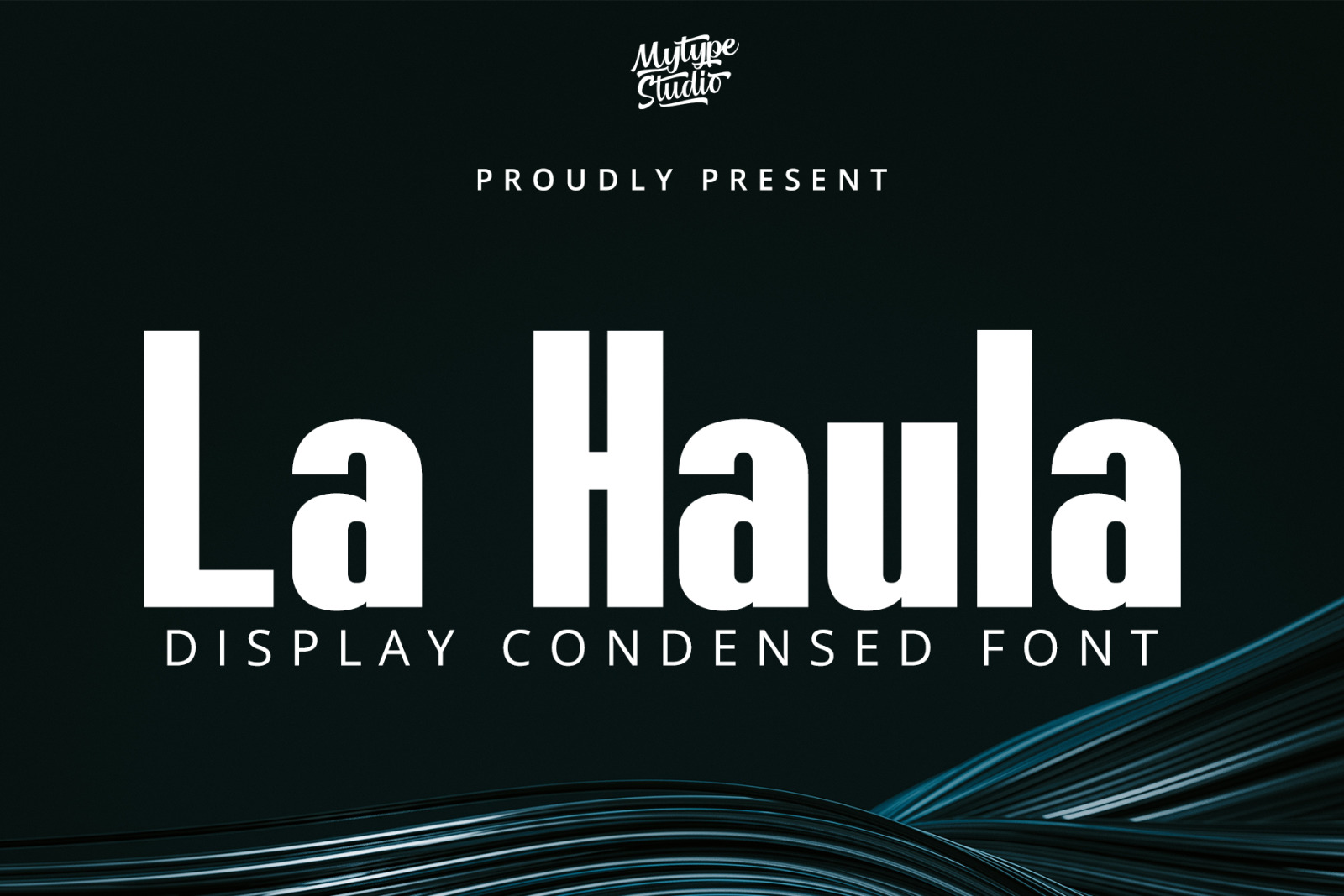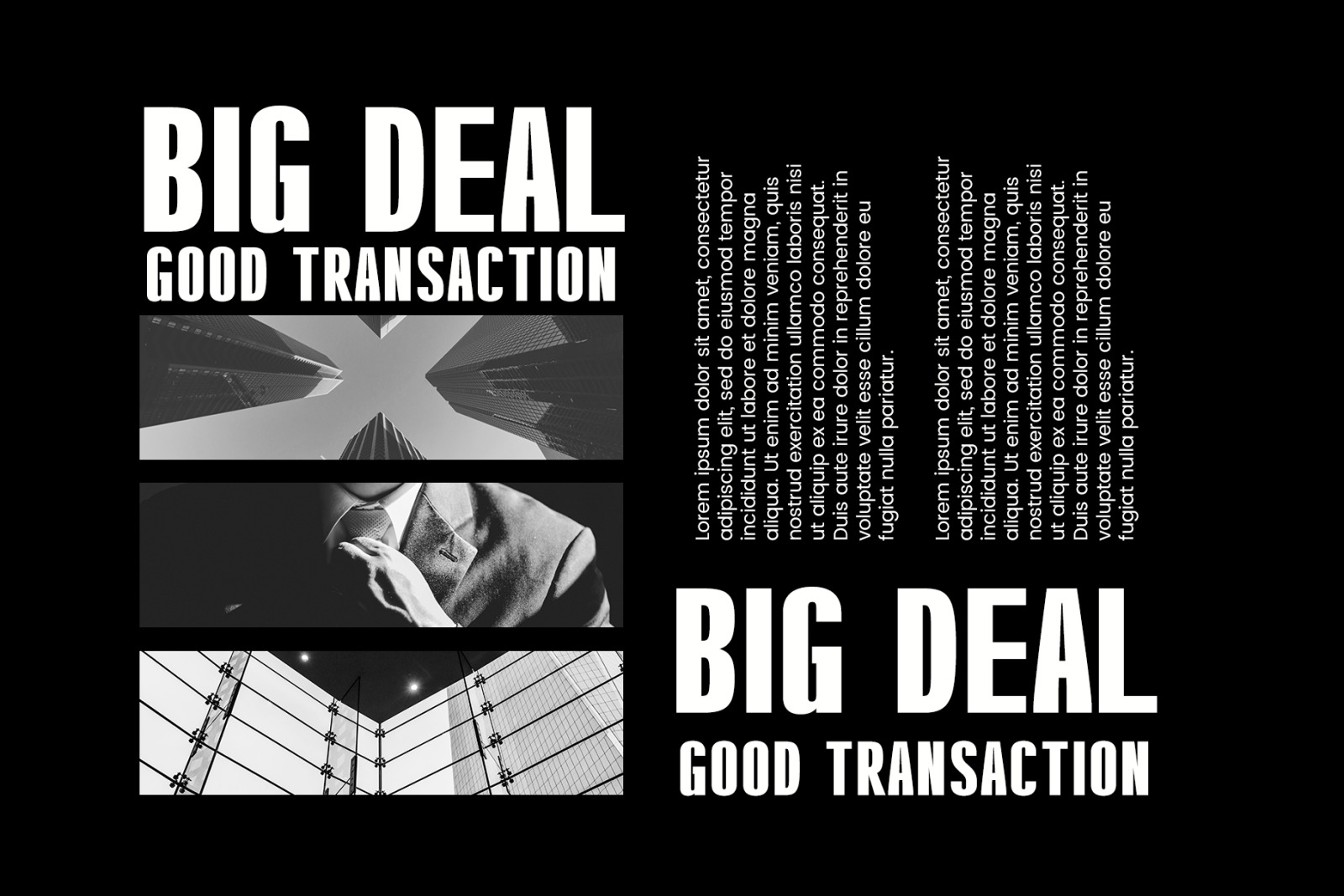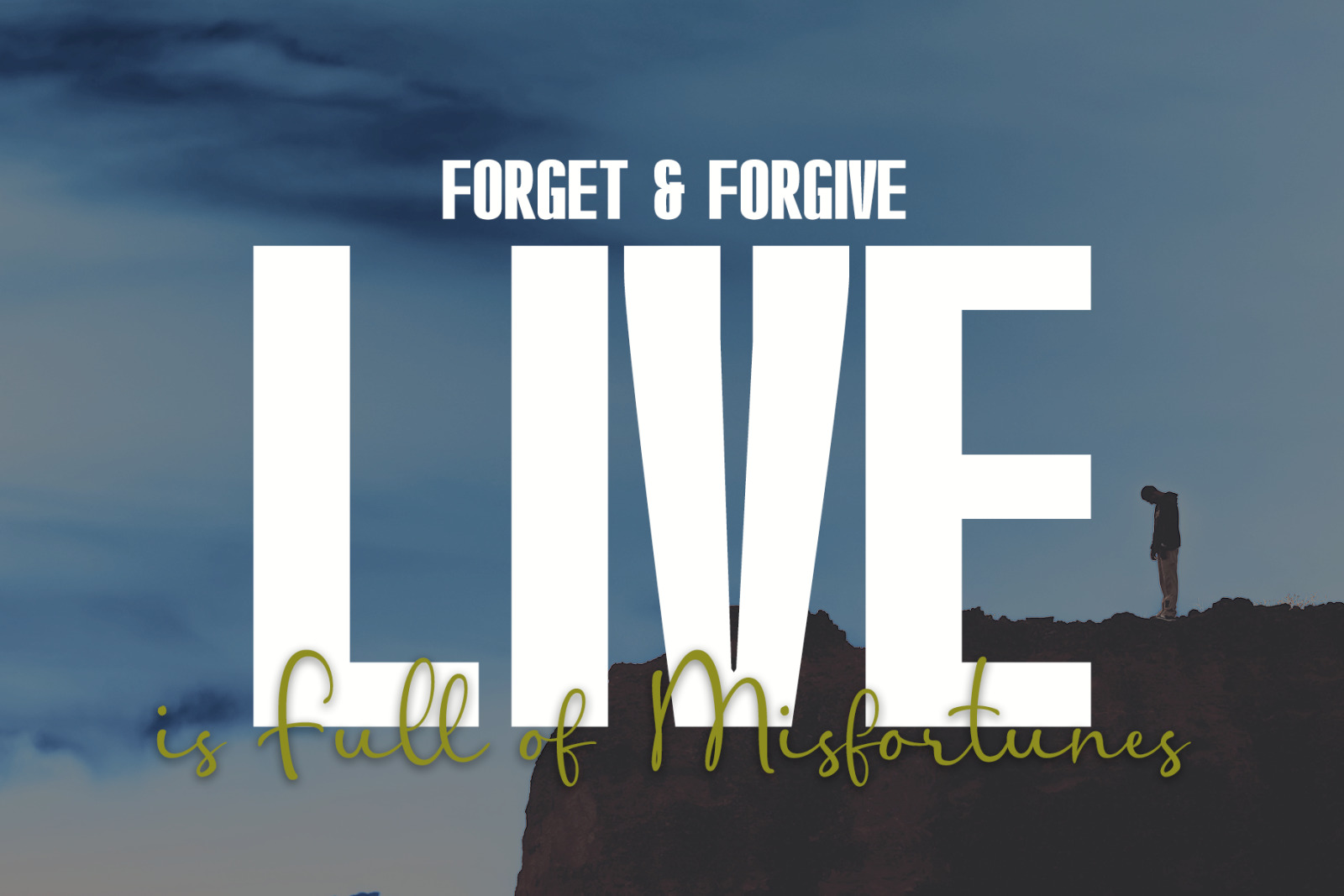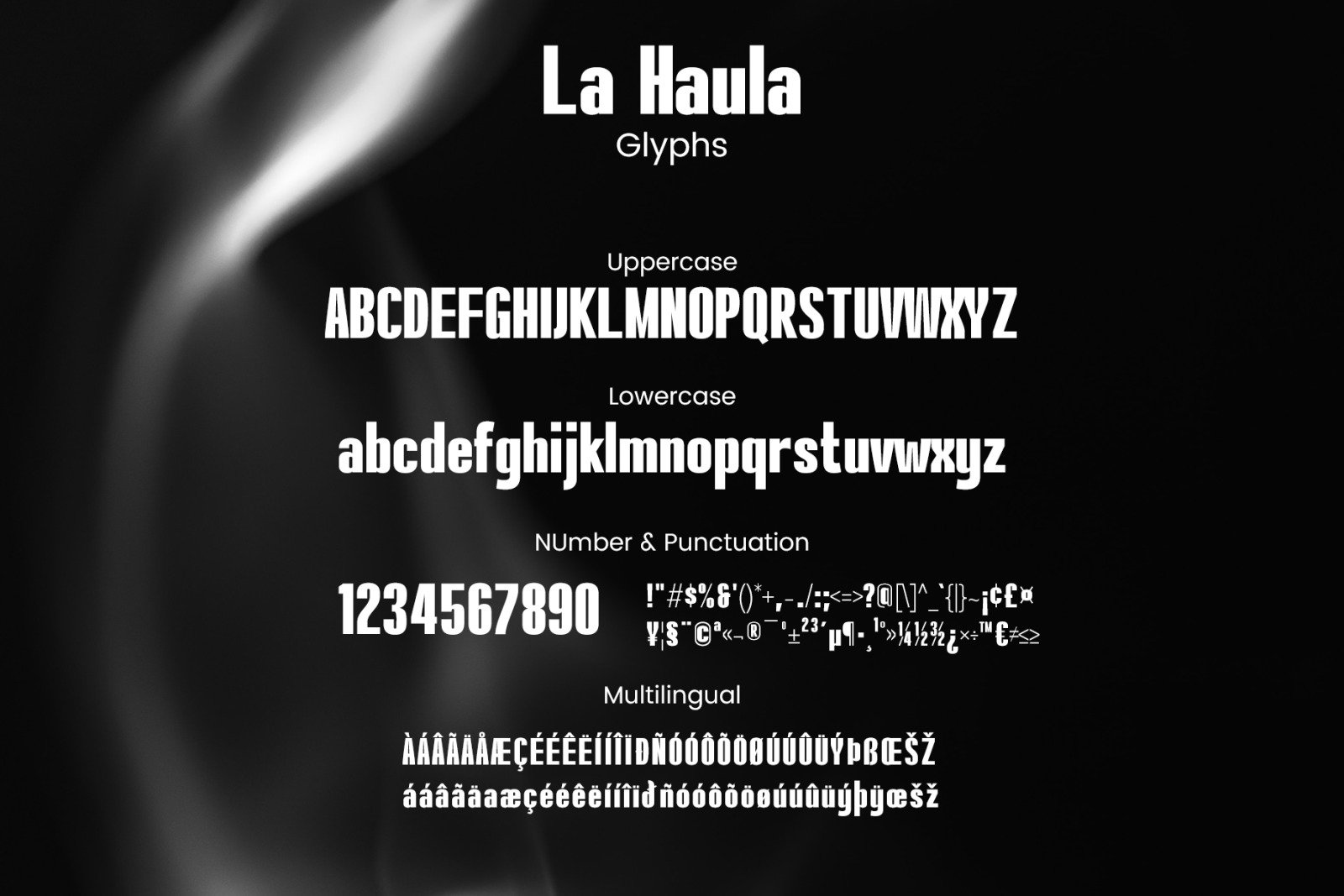
La Haula Font
La Haula is a condensed sans-serif typeface created to be used for bold titles with distinctive shapes into a display fonts way to make it legible for contemporary use.This Font boasts three distinct styles - Bold, Condensed, and Monospace - each tailored to cater to your varied design needs.